Trying to identify fonts used by The Reconstructionist Press in the 70s.
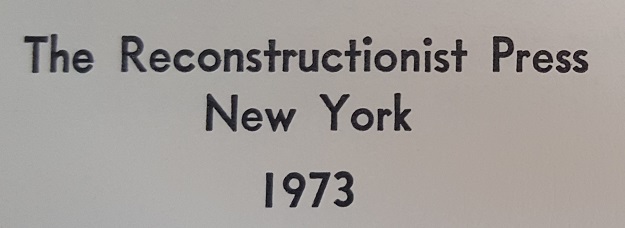
Trying to identify fonts used by The Reconstructionist Press in the 70s.
Intertype Vogue, from the 1930s. A digital version by Miller Type Foundry is Intervogue Soft. https://www.myfonts.com/fonts/millertype/intervogue-soft/
Thank you. The font I have is quite a bit sharper than the soft version, but the standard Intertype Vogue looks like a good match. There are some small differences between the modern remake and the older versions. In particular, the older cap O was not round.